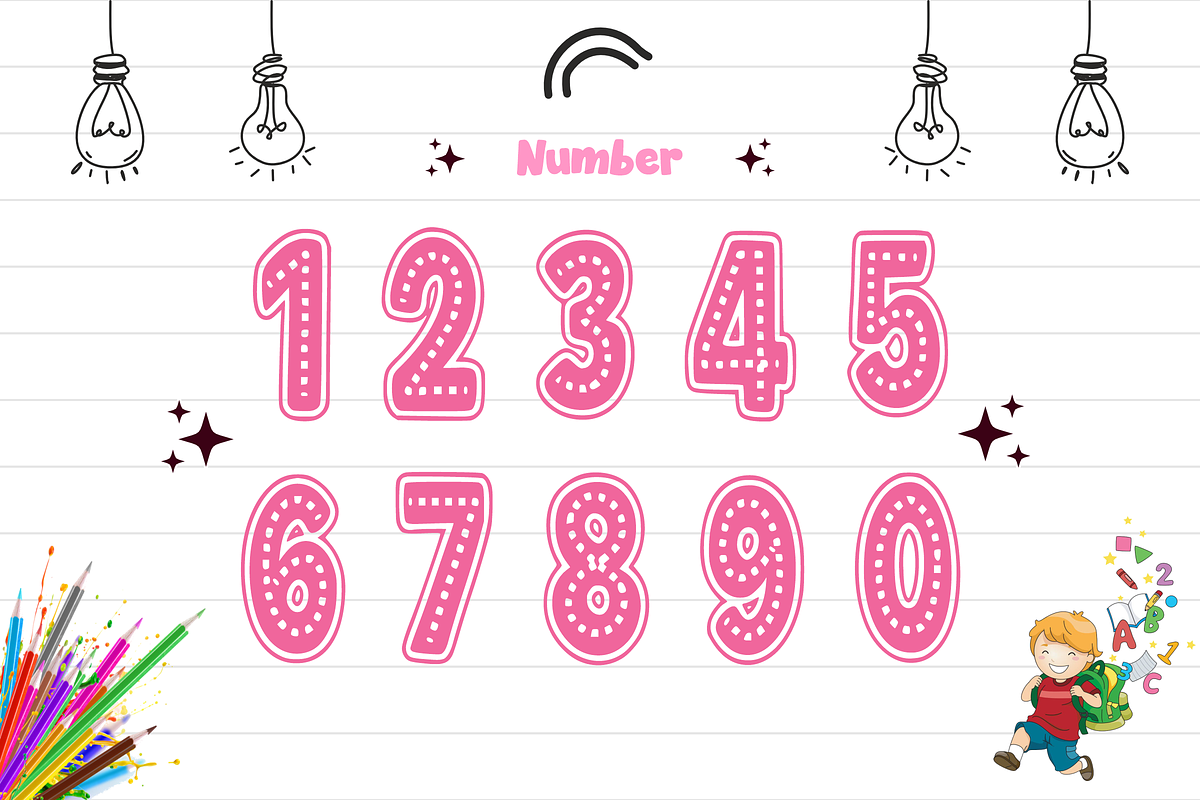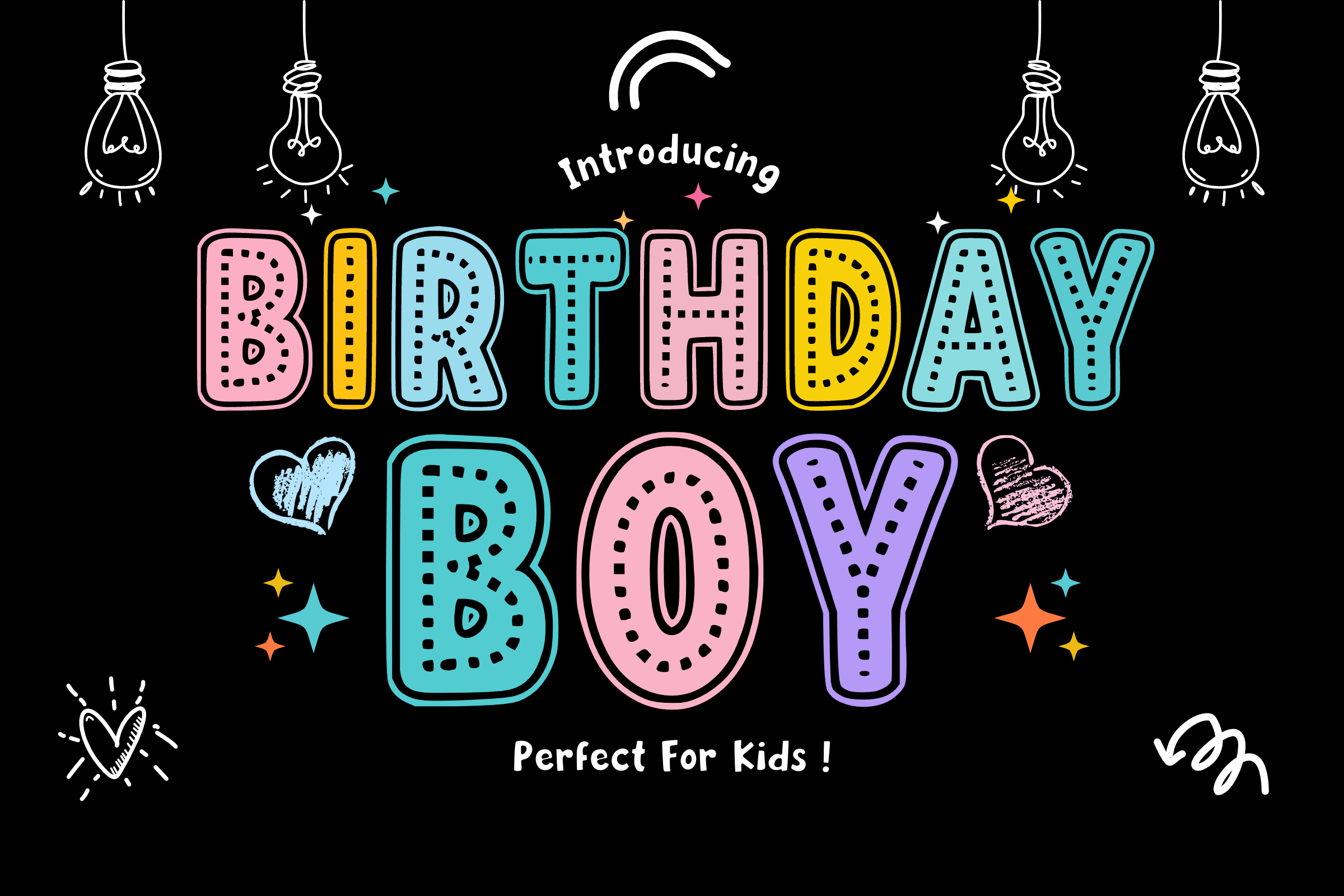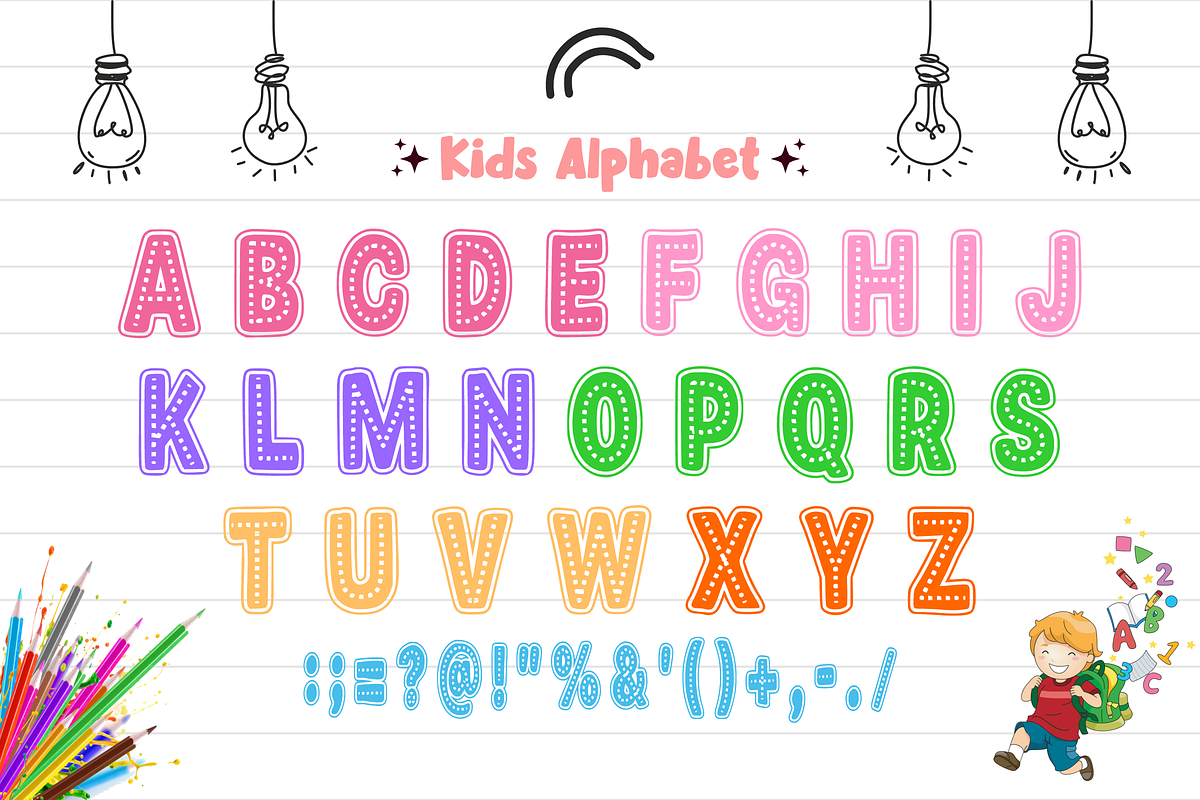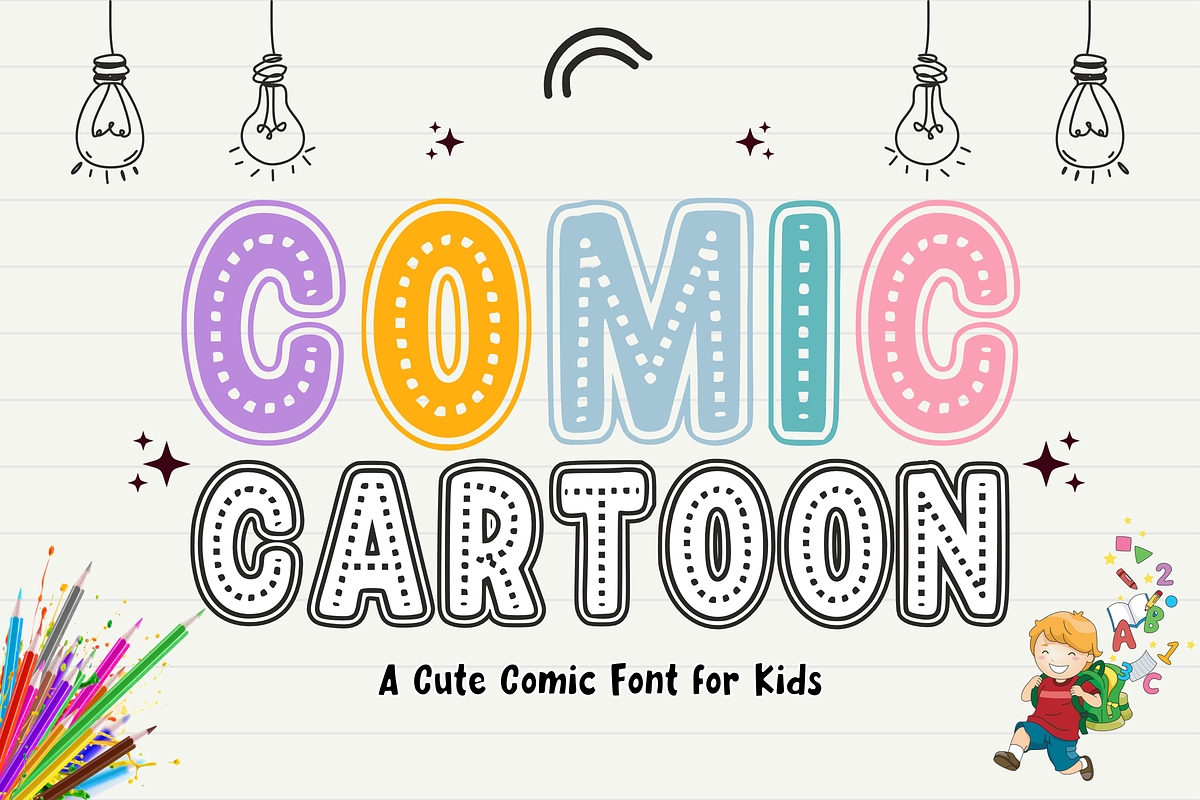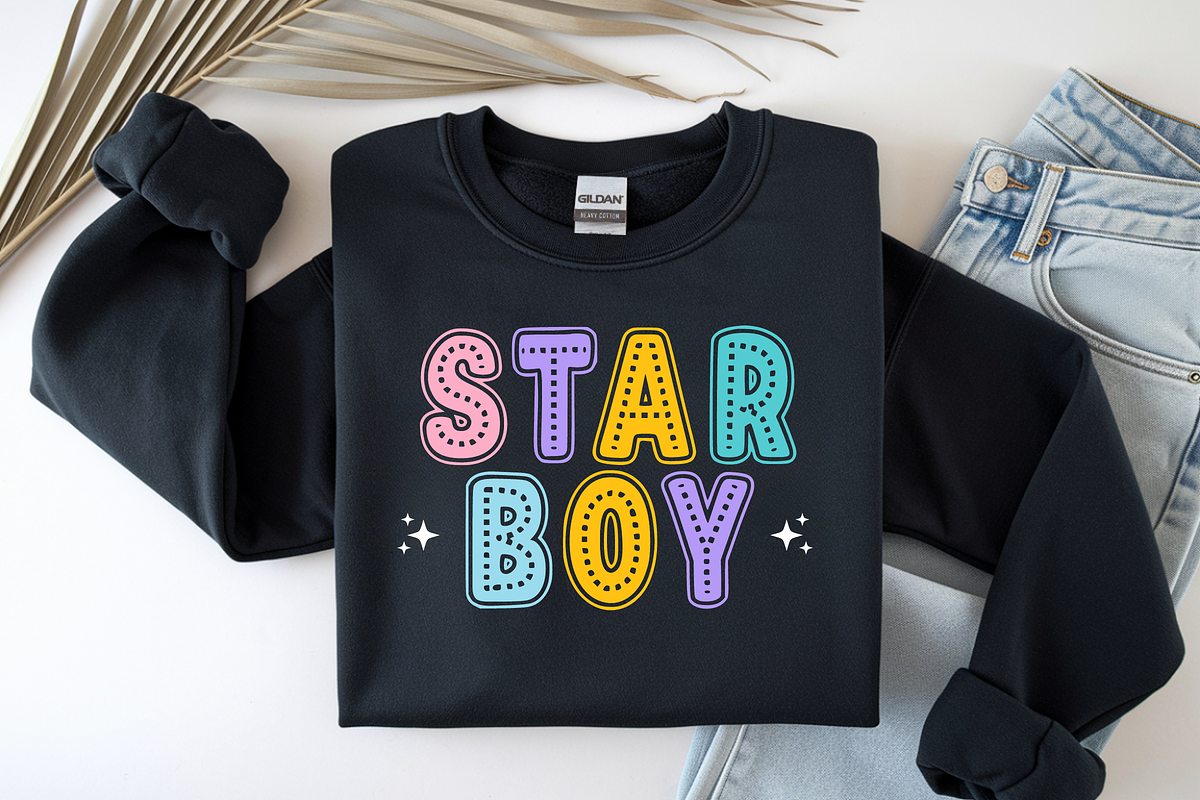
Birthday Boy โ Playful Font Types
๐ Birthday Boy โ Playful Festive Display Font ๐ Make every celebration unforgettable! ๐
Birthday Boy is a joyful and energetic display font designed to capture the magic of childhood celebrations. Featuring a unique "stitched" or dashed pattern inside every bold, rounded character, this font brings a delightful hand-drawn and crafty vibe to your designs. Itโs the perfect choice for projects that need to feel festive, friendly, and full of life.
Whether you're creating a birthday banner, school posters, or adorable merchandise, Birthday Boy adds that special "party" touch instantly!
โจ Whatโs Included: Unique Texture: Bold letters with fun internal dashed patterns.
Easy to Use: Bouncy, legible, and perfect for headlines.